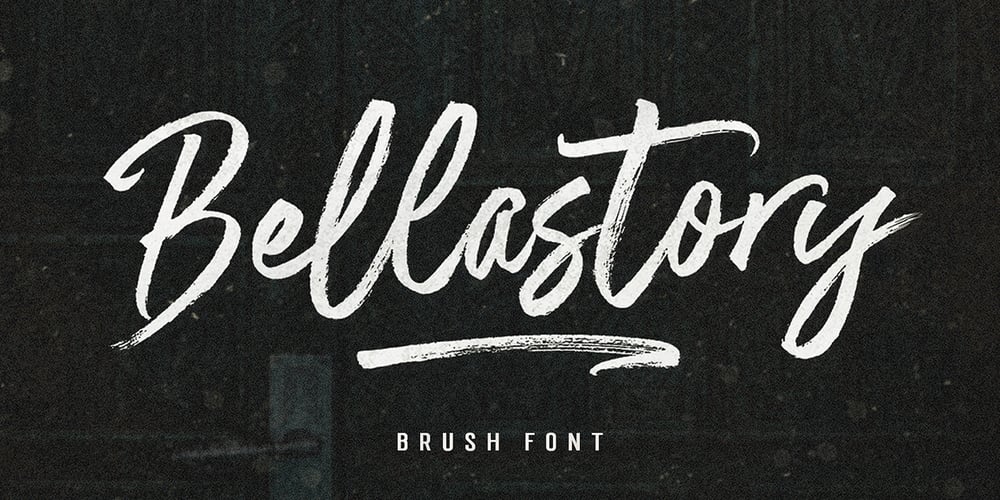
Bellastory Font Family was designed by Hafis Hidayat and published by HafisHidayat. Bellastory contains 2 styles and family package options. Bellastory is a font that is intentionally made with hand strokes using a brush pen, so that it gets a natural texture, and produces beautiful fonts for your various designs, this font is suitable for cover books, magazines, logos, invitations, business cards, screen printing,product packaging, posters, invitations, greeting cards, news, blogs, everything including personal charm.